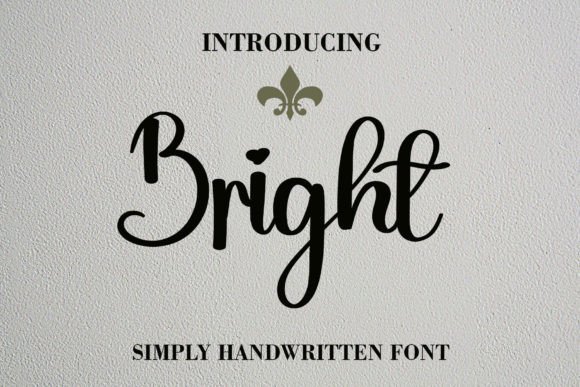
The Bright Font: Elevating Your Designs with Elegance and Class
I’ll never forget the time I was working on a wedding invitation project, and my client specifically asked for a font that exuded elegance and sophistication. I scoured the internet, trying out font after font, but nothing seemed quite right. That was until I stumbled upon Bright, a trendy handwritten font that instantly caught my eye. With its contemporary atmosphere and impeccable form, inspired by timeless classic calligraphy, Bright added a touch of luxury to the invitation that my client absolutely loved.
A Personal Review of Bright Font
As a designer, I’m always on the lookout for fonts that can elevate my projects and make them stand out. Bright font has become one of my go-to fonts, and here’s why:
- ✨ Elegant and sophisticated: Bright font has a way of adding a touch of class to any design project.
- ✅ Highly versatile: Whether I’m working on a wedding invitation, a branding project, or a social media graphic, Bright font always seems to fit in.
- 💫 Beautifully crafted: The attention to detail in Bright font is impressive, with delicate lines and curves that make it a joy to work with.
Of course, no font is perfect, and Bright font does have a few small quirks:
- 🤔 Limited use in body text: While Bright font is perfect for headings and titles, it may not be the best choice for body text due to its elegant, yet somewhat ornate, design.
- ⚠️ Occasional kerning issues: As with any font, there may be occasional kerning issues, especially when using Bright font in combination with other fonts.
The Story Behind Bright Font
Bright font was designed by a team of typographers who wanted to create a font that would bring a touch of elegance and sophistication to any design project. Inspired by timeless classic calligraphy, Bright font combines traditional techniques with modern sensibilities to create a truly unique font.
| Font Name | Bright Font |
| Author | asmunin78 |
| What is Bright font? | Bright font is a trendy handwritten font with a contemporary atmosphere and impeccable form, inspired by timeless classic calligraphy. |
| Is Bright font suitable for body text? | While Bright font is perfect for headings and titles, it may not be the best choice for body text due to its elegant, yet somewhat ornate, design. |